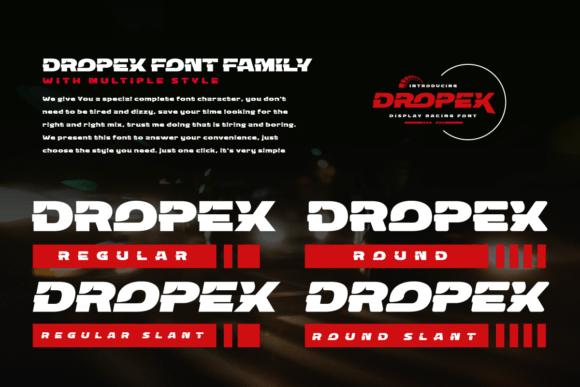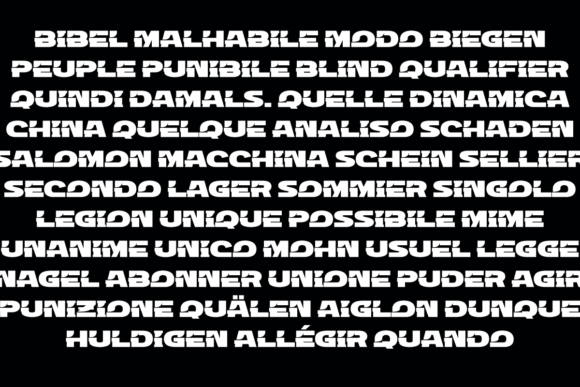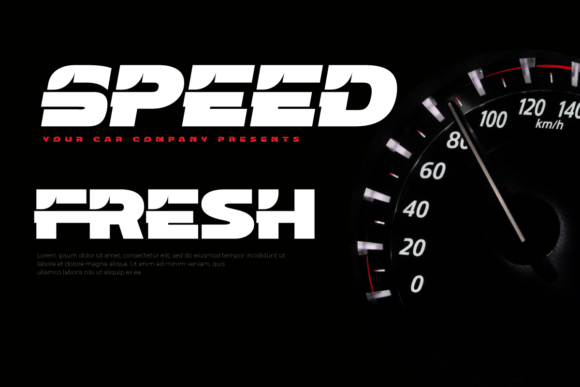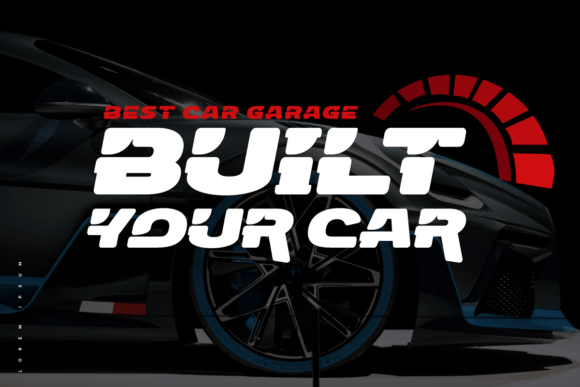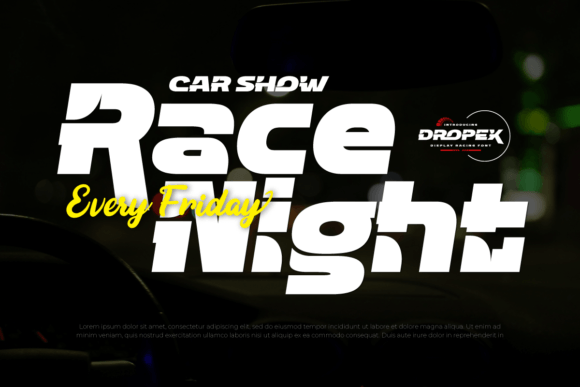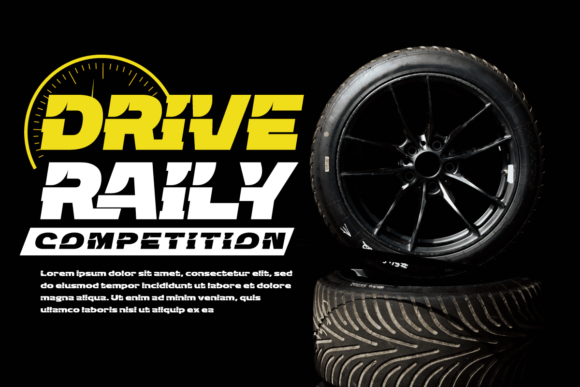
Dropex Font: Elevate Your Design with a Bold and Unique Typeface
In the world of design, typography plays a crucial role in conveying messages, expressing creativity, and capturing the audience’s attention. Among the numerous fonts available, Dropex Font stands out as a bold, strong, and uniquely shaped typeface that embodies masculinity and readability. Designed with meticulous attention to detail, Dropex Font is the perfect choice for designers and crafters seeking to make their projects stand out from the rest.
The Distinctive Features of Dropex Font
Dropex Font boasts a distinctive design that sets it apart from other typefaces. Its bold and strong appearance makes it ideal for headlines, titles, and any design project that requires a statement piece. The font’s unique shape and masculine tone add a touch of sophistication and elegance, making it suitable for a wide range of applications, from logos and branding to posters and packaging.
One of the key benefits of Dropex Font is its exceptional readability. The font’s carefully crafted design ensures that it remains clear and legible, even at smaller sizes, making it perfect for body text and other applications where readability is crucial.
PUA Encoding for Easy Access to Glyphs and Swashes
Dropex Font is PUA (Private Use Area) encoded, which means that designers can easily access all the glyphs and swashes without any hassle. This feature allows for greater flexibility and creativity, enabling designers to experiment with different styles and effects. With Dropex Font, you can unlock a world of design possibilities and take your projects to the next level.
Why Choose Dropex Font for Your Design Project?
So, why should you choose Dropex Font for your design project? Here are just a few compelling reasons:
- Unique and bold design: Dropex Font’s distinctive appearance will make your project stand out from the crowd.
- Exceptional readability: The font’s clear and legible design ensures that your message will be conveyed effectively.
- PUA encoded: Easy access to glyphs and swashes for added flexibility and creativity.
- Masculine and sophisticated tone: Perfect for a wide range of applications, from logos and branding to posters and packaging.
How to Use Dropex Font in Your Design Project
- Create stunning headlines and titles that grab attention.
- Design eye-catching logos and branding materials that make a statement.
- Develop unique and engaging posters and packaging that stand out.
In conclusion, Dropex Font is a bold, strong, and uniquely shaped typeface that is perfect for designers and crafters seeking to elevate their design projects. With its exceptional readability, masculine tone, and PUA encoding, Dropex Font offers a world of design possibilities. Whether you’re working on a logo, poster, or packaging project, Dropex Font is the perfect choice for making a statement and capturing your audience’s attention.